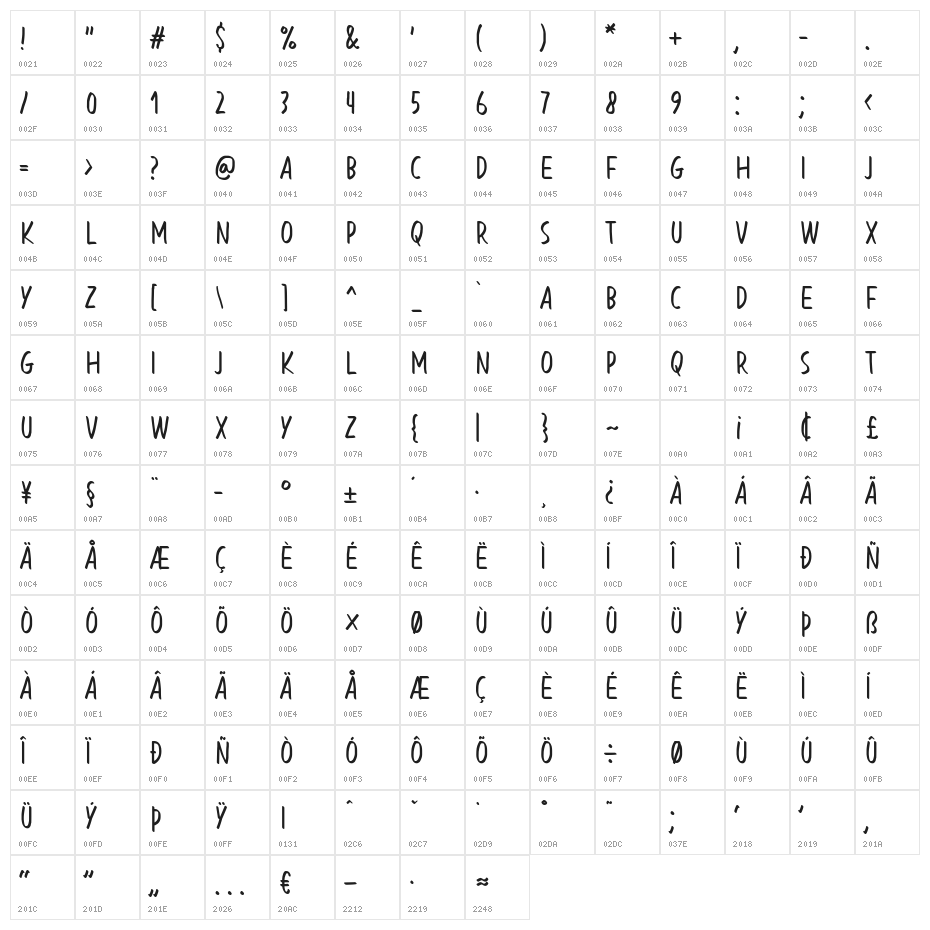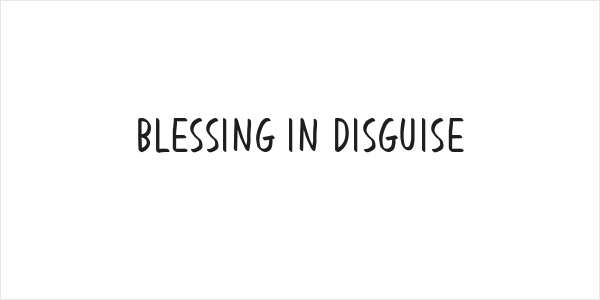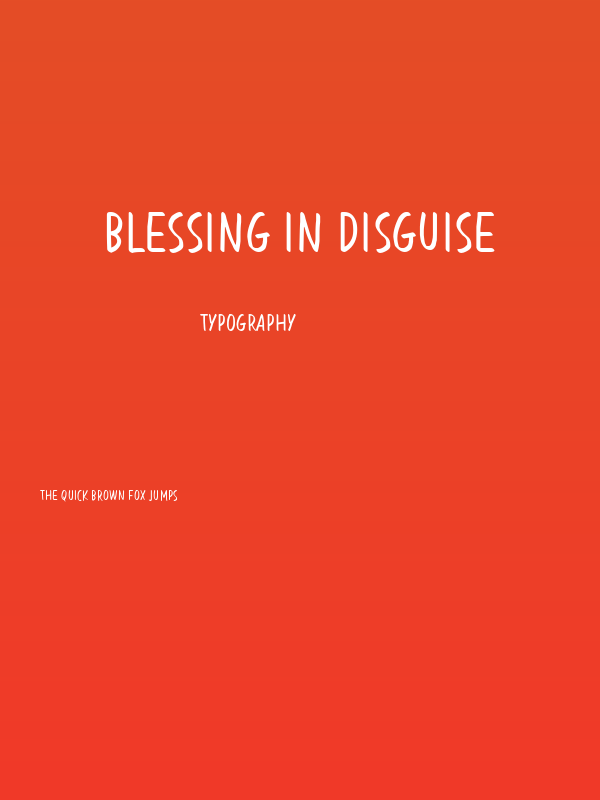
Blessing in Disguise Font
Blessing in Disguise Description
This font features a playful and informal handwritten style, characterized by its slightly irregular strokes and casual appearance. The letters are bold and have a consistent thickness, giving them a strong presence on the page. The uppercase and lowercase letters maintain a cohesive look, with rounded edges and a slight slant that adds to the font's approachable and friendly feel. The numerals and special characters are designed to match the overall aesthetic, ensuring a harmonious look across all text elements. This font is versatile and can be used in a variety of design projects where a personal touch is desired.
| Proposed Projects | Ideal for greeting cards, invitations, personal branding, and social media graphics. |